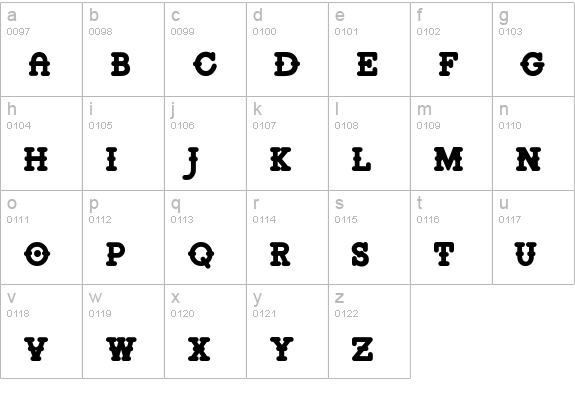
Retro Pop Bold Font Details
Retro Pop Bold is a strong, high-contrast variant in the Retro typeface family \xE2\x80\x94 well suited to headlines, attention-grabbing titles, and strong calls-to-action.
Introducing Retro Pop Bold font, a dynamic and eye-catching typeface that perfectly captures the essence of retro design. This bold and playful font is inspired by the vibrant colors and bold shapes of the 80s and 90s, making it ideal for projects that require a fun and nostalgic touch. Retro Pop Bold font features strong, clean lines and a unique character that will make your text stand out in any project. Whether you're designing posters, logos, or social media graphics, this font is sure to make a bold statement. Best of all, Retro Pop Bold font is completely free to download at FontsMarket.com. So go ahead and add a touch of retro flair to your designs with this exciting and versatile typeface.